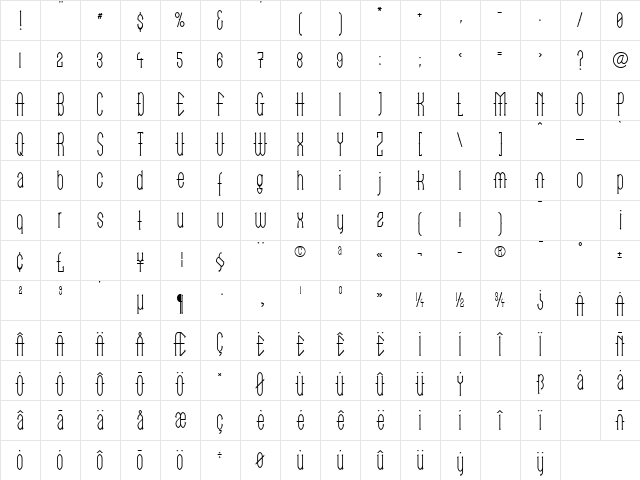
LTGoTekk Thin Regular Free Font
LTGoTekk Thin Regular
LTGoTekk Thin Family
Design Context for LTGoTekk Thin
LTGoTekk Thin is a composed and adaptable typeface that performs quietly and consistently across a wide range of design contexts. Its slender proportions lend an understated elegance to any composition.
Pro Tip: Use LTGoTekk Thin in both headline and body roles to test its range before committing to a single application.